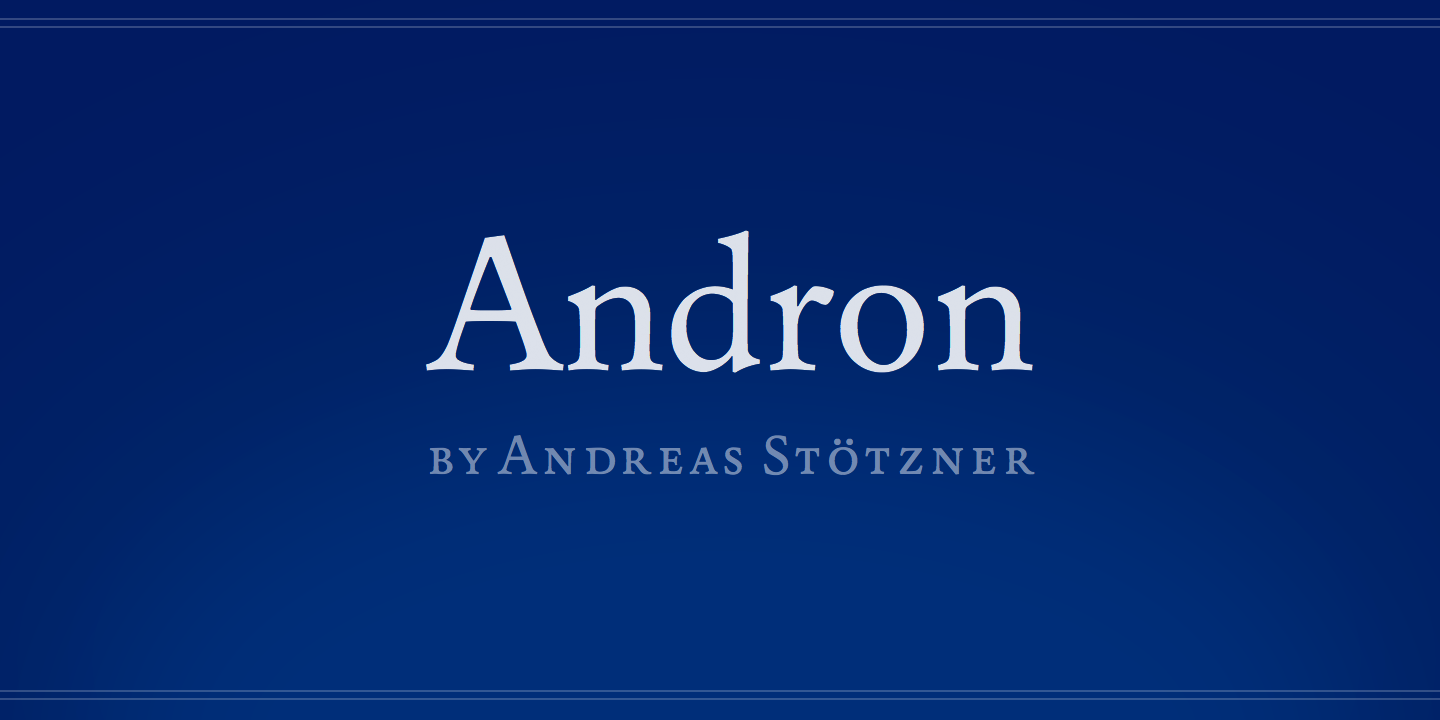
Please note, you must purchase this font for commercial use. You can download Andron 1 Latin Corpus Font Free Download for testing purposes and explore its clean, professional design. Andron 1 Latin Corpus Font is perfect for academic projects, editorial content, branding, and any design that requires a sophisticated, legible typeface.
With its well-balanced structure and classic design, Andron 1 Latin Corpus Font brings a sense of clarity and readability to your projects. It's ideal for both body text and headings, ensuring that your content looks polished and easy to read, whether in print or on screen.
Andron 1 Latin Corpus Font Free Download supports multilingual characters, making it suitable for global projects. Its simple, legible design ensures readability across a wide range of mediums, from books and articles to digital applications.